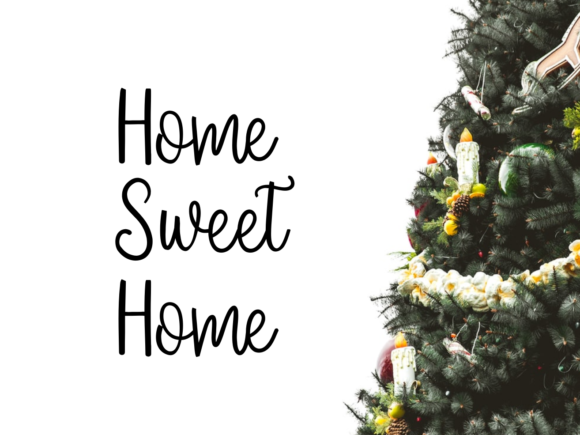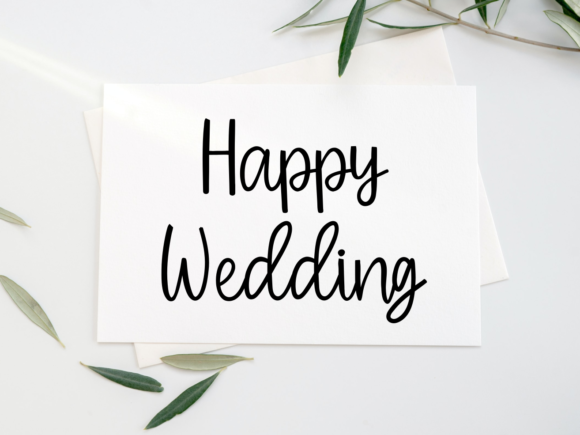
Christmas Gnome Font
db-ku.com - Script & Handwritten -- Christmas Gnome is a beautiful and neat handwritten font, perfect for making your designs stand out from the crowd. Its characters are perfect for wall displays, wedding invitations, social media post logos, advertisements, product packaging, product designs, labels, photography, watermarks, invitations, stationery, and any project that requires modern typography.